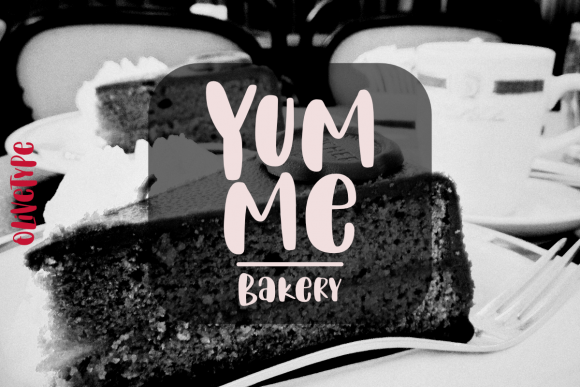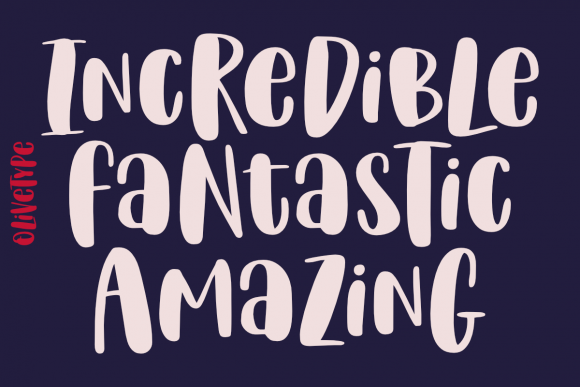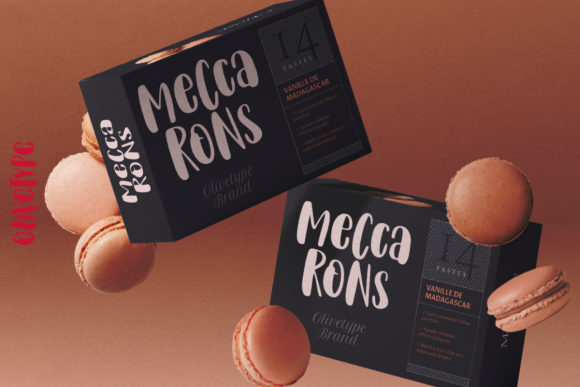
Cake Store Font: Elevate Your Designs with a Modern Display Font
Are you looking for a font that can add a touch of elegance and sophistication to your designs? Look no further than the Cake Store font. This modern display font is designed to be readable, friendly, and stylish, making it perfect for fashion branding, editorial designs, and more.
What Makes Cake Store Font So Special?
Cake Store font is defined by its smooth curves, which give it a unique and distinctive look. The font is designed to be highly legible, even at large sizes, making it perfect for headlines, titles, and other display text. The font’s friendly and approachable feel makes it ideal for brands that want to convey a sense of warmth and approachability.
Key Features of Cake Store Font
- Modern and stylish design: Cake Store font features a sleek and contemporary design that is sure to turn heads.
- Smooth curves: The font’s smooth curves give it a distinctive look that sets it apart from other fonts.
- Highly legible: Cake Store font is designed to be highly legible, even at large sizes.
- Friendly and approachable feel: The font’s friendly and approachable feel makes it ideal for brands that want to convey a sense of warmth and approachability.
- Perfect for fashion branding and editorial designs: Cake Store font is perfect for fashion branding, editorial designs, and other applications where a stylish and sophisticated font is needed.
How to Use Cake Store Font in Your Designs
Using Cake Store font in your designs is easy. Here are a few tips to get you started:
- Use it as a display font: Cake Store font is perfect for headlines, titles, and other display text.
- Pair it with other fonts: Cake Store font pairs well with a variety of other fonts, making it easy to create a cohesive look.
- Experiment with different sizes and colors: Cake Store font looks great at a variety of sizes and colors, so don’t be afraid to experiment.
Benefits of Using Cake Store Font
There are many benefits to using Cake Store font in your designs. Here are a few:
- Adds elegance and sophistication: Cake Store font adds a touch of elegance and sophistication to any design.
- Improves readability: The font’s high legibility makes it easy to read, even at large sizes.
- Versatile: Cake Store font can be used in a variety of applications, from fashion branding to editorial designs.
- Unique and distinctive look: The font’s smooth curves give it a unique and distinctive look that sets it apart from other fonts.
Who Can Benefit from Using Cake Store Font?
Cake Store font is perfect for a variety of designers and crafters, including:
- Fashion designers: Cake Store font is perfect for fashion branding and editorial designs.
- Graphic designers: The font’s versatility and legibility make it a great choice for graphic designers.
- Editorial designers: Cake Store font is perfect for editorial designs, such as magazines and newspapers.
- Crafters: The font’s friendly and approachable feel makes it ideal for crafters who want to add a personal touch to their designs.
In conclusion, Cake Store font is a modern display font that is perfect for fashion branding, editorial designs, and more. Its smooth curves, high legibility, and friendly and approachable feel make it a great choice for designers and crafters. With its versatility and unique and distinctive look, Cake Store font is sure to elevate your designs and add a touch of elegance and sophistication.